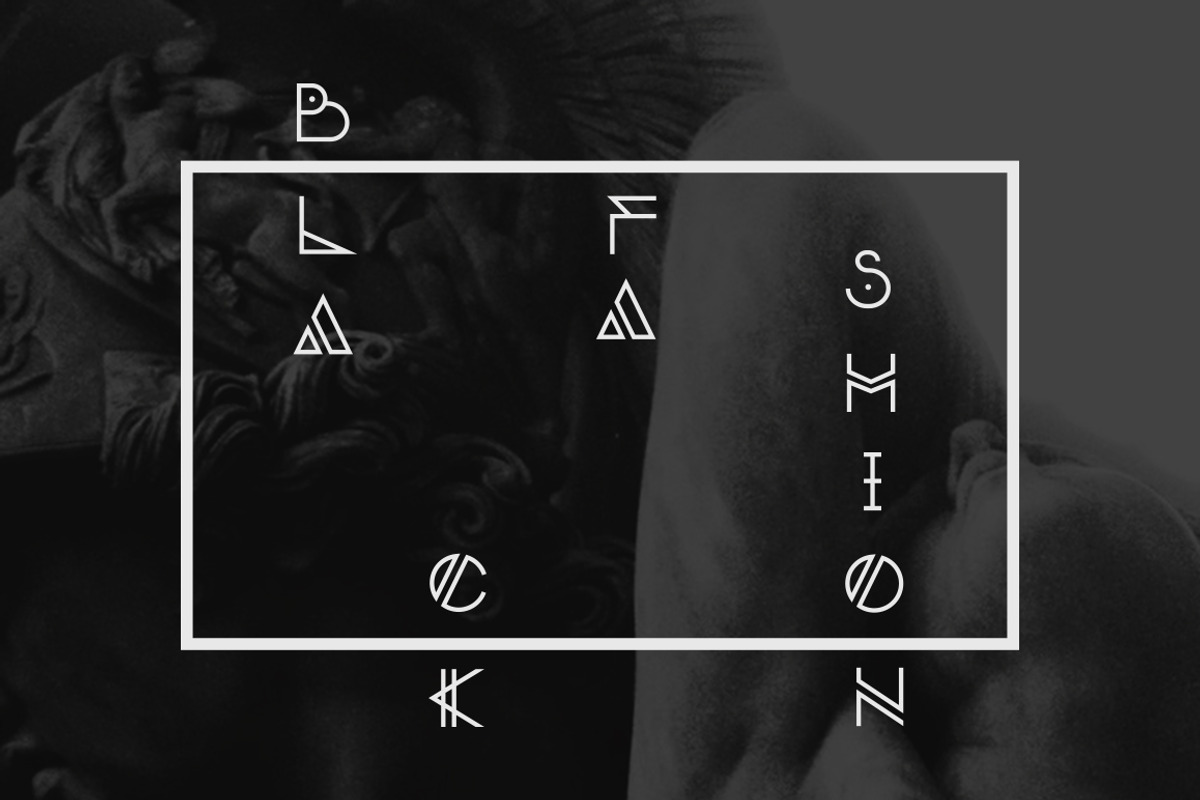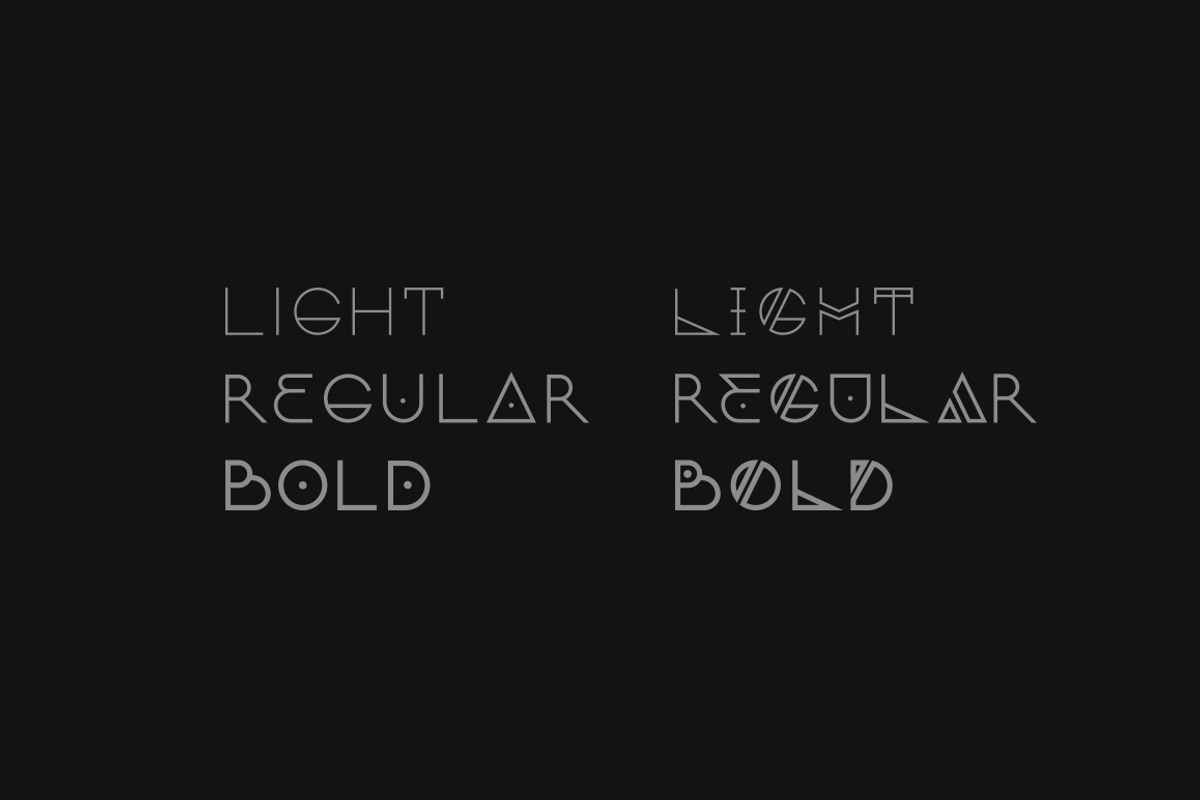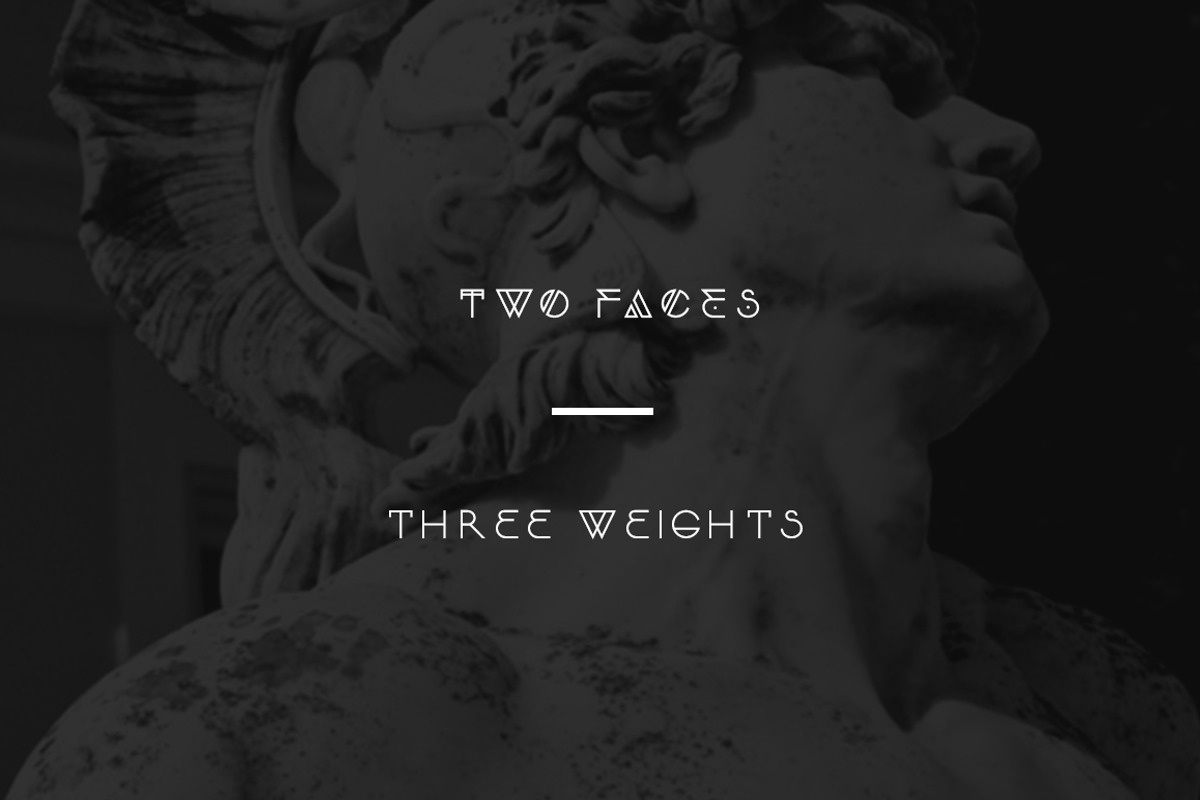
Nordic Font
Nordic Font by Yana Bereziner is a font selected for branding, posters, packaging, typography.
- It consists of uppercase, numbers and basic punctuation.
Nordic Font by Yana Bereziner fits naturally into Branding, posters, packaging, typography.